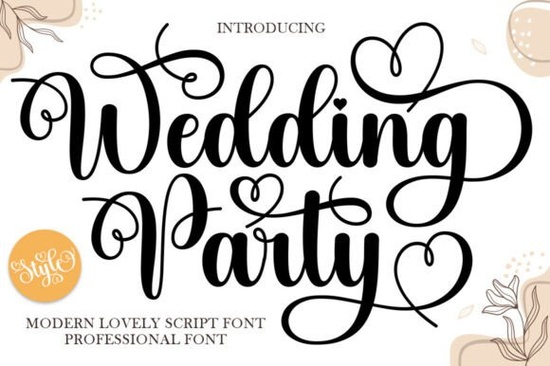
If you're looking for a script font that feels personal, graceful, and unmistakably wedding-ready, the Wedding Party Font fits naturally into invitations, signage, and keepsakes without trying too hard. It’s not overly ornate or fussy just softly curved, gently flowing, and thoughtfully detailed with subtle heart-inspired swashes that nod to romance without shouting it. Whether you're designing save-the-dates for a small backyard ceremony or creating printable place cards for a luxury venue, this font carries warmth and intention.
What makes Wedding Party Font work so well for real projects?
First, it’s legible at medium sizes a common pain point with delicate scripts. The letterforms have consistent spacing and gentle contrast between thick and thin strokes, so it holds up well on both digital screens and printed paper. Second, it includes alternate characters and ligatures (like “&” and “ff”, “fi”) that help avoid awkward collisions and give your text a more hand-crafted rhythm. And third, it pairs cleanly with simple sans-serifs or soft serif fonts no need to overthink layering.
Designers who’ve used it for print-on-demand shops often tell us it converts well on Etsy listings: customers recognize its tone instantly. It reads as wedding, but not generic wedding. That specificity matters when shoppers scroll past dozens of similar fonts. You’ll find it especially effective for boutique stationery, custom vow books, or even monogrammed napkins and coasters.
How does it compare to other popular script fonts?
Unlike some high-contrast calligraphy fonts that demand careful kerning or large sizes, Wedding Party Font is forgiving even for beginners. It’s less formal than Sparkling Moment Font, which leans into glittery celebration, and more refined than Playful Note Font, which suits birthdays or baby showers better. It also sits comfortably between the airy lightness of Laundry Font and the bolder presence of Handwriting Bundle Font.
For example, if you’re building a full wedding suite invites, menus, thank-you cards you might use Wedding Party for headlines and names, then pair it with a clean, neutral body font like Montserrat or Lora. That balance keeps things elegant but readable. If you want more flexibility in one package, the handwriting bundle gives you options across moods and use cases, while Sparkling Moment Font adds extra sparkle for reception signage or social media graphics.
Where do crafters and small businesses actually use it?
- Printable templates: Digital downloads like bridal shower games, seating charts, or vow worksheets benefit from its friendly yet polished tone.
- Cut files: Works smoothly in Cricut Design Space and Silhouette Studio especially for vinyl decals on glass jars, acrylic signs, or fabric banners.
- Social media graphics: Looks great in Instagram Stories announcing engagement photos or behind-the-scenes prep shots.
- Small batch printing: Holds detail well on matte cardstock and foil-stamped paper no blurring or loss of character.
One small business owner told us she used Wedding Party Font across her entire brand identity not just invites, but her website headers, packaging stickers, and even the chalkboard menu at her pop-up cake shop. It gave cohesion without feeling repetitive, because the swashes and alternates let her vary styling across formats.
If you’re already working with other script fonts, consider how Wedding Party complements them. For instance, Laundry Font brings a breezy, linen-textured feel great for rustic venues while Wedding Party adds polish for the same couple’s formal invitation suite. Think of them as different voices in the same conversation.